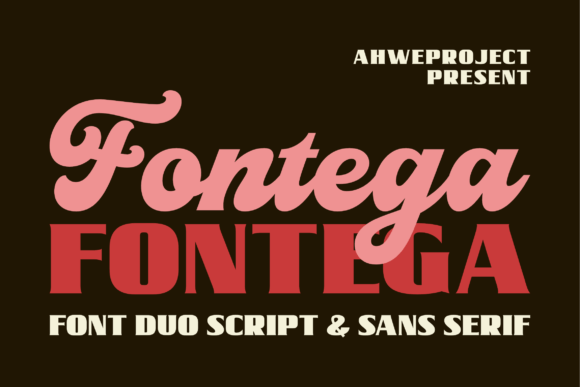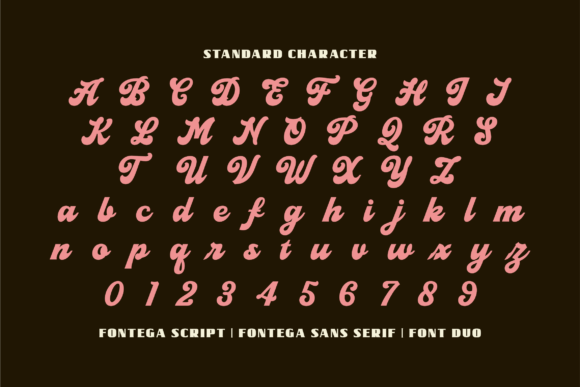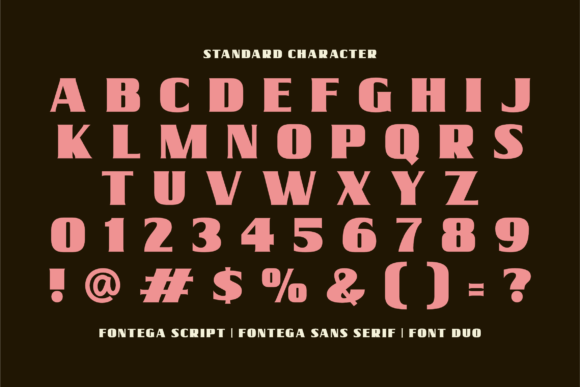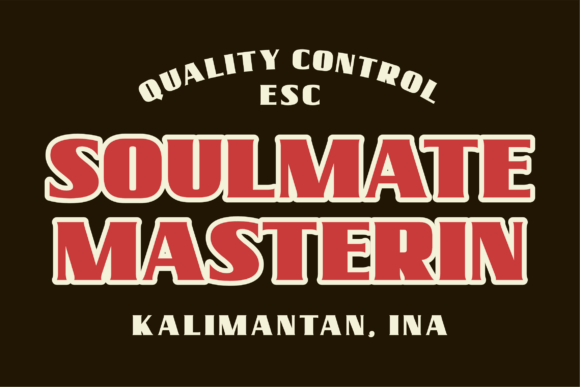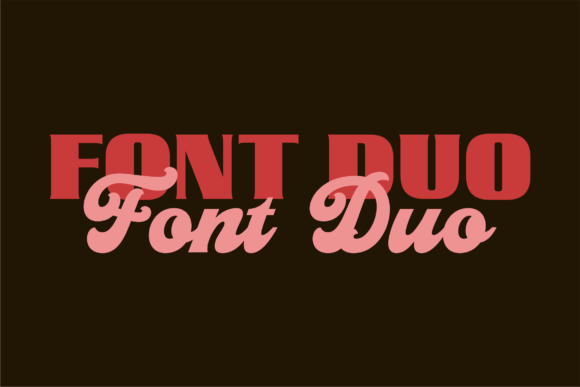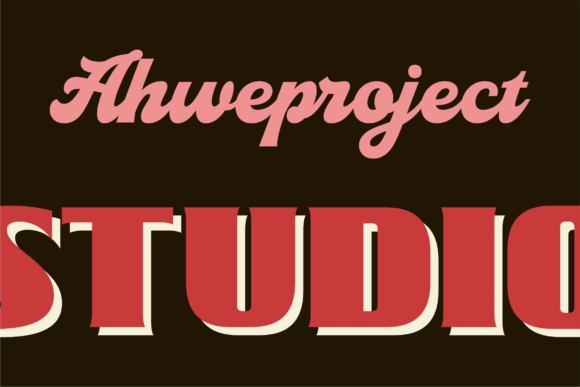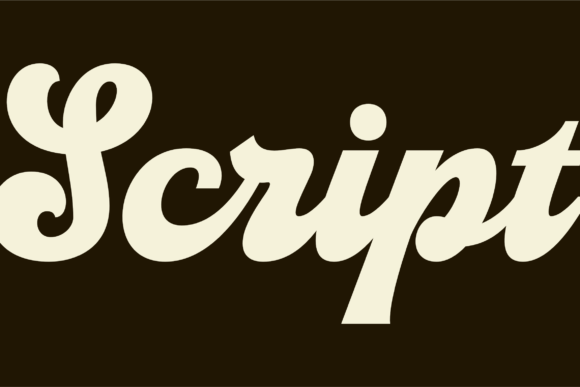
Unleashing Elegance: Introducing Fontega Duo Font
As a designer, you’ve likely experienced that moment of creative bliss when the perfect font comes together, elevating your entire project. It’s a feeling that’s hard to replicate, but with Fontega Duo Font, you might just find yourself there again and again.
Fontega Duo Font is a luxurious font duo consisting of a script and serif font, expertly paired to bring a touch of sophistication to your designs. Whether you’re working on a headline, logotype, apparel, invitation, branding, packaging, or advertising project, this versatile typeface has got you covered. With its support for uppercase, lowercase, punctuation, symbols, numerals, and multiple languages, Fontega Duo Font is an invaluable asset for designers seeking to elevate their work.
Fontega Duo Font Key Features
- Font Family: Fontega Duo is a modern sans-serif font family designed for digital use. It comes in two weights: Regular and Bold.
- Character Set: The font includes a wide range of characters, including Latin, Cyrillic, and Greek scripts, making it suitable for global applications.
- Resolution: Fontega Duo is designed to be highly legible at various resolutions, including screen resolutions (72-144 dpi) and print resolutions (300-600 dpi).
- Font Size: The font family supports font sizes ranging from 8 to 72 points, making it suitable for a wide range of applications, from body text to display headings.
- Unique Characteristics: Fontega Duo features a unique blend of modern and classic design elements, with a focus on readability, making it an ideal choice for digital applications where clear communication is essential.
Fontega Duo Font Review
I recently had the chance to work with the Fontega Duo Font, and here’s my honest take.
- The unique blend of script and sans-serif elements creates a visually appealing and modern look.
- The font is highly legible, even at smaller font sizes.
- The bold and light versions of the font are well-balanced and versatile.
- It’s great for use in digital and print materials, including logos, headings, and body text.
- The font may be too bold or overpowering for some designs, particularly those with simple or minimalist aesthetics.
- The script elements can sometimes feel disjointed or inconsistent, especially when used in long blocks of text.
- The font lacks a true italic version, which can make it less suitable for formal or academic writing.
The Fontega Duo Font is a solid choice for designers looking to add a modern, eye-catching touch to their projects. While it has some limitations, its unique style and high legibility make it a great option for a wide range of applications.
Getting the Most Out of Fontega Duo Font
To get the most out of Fontega Duo Font, consider the following tips:
- Experiment with different font styles and sizes to create visually appealing designs.
- Pair Fontega Duo Font with other fonts to create a unique and stylish look.
- Use Fontega Duo Font to create emphasis and draw attention to important text.
Fontega Duo Font is ideal for:
- Designing logos and branding materials.
- Creating eye-catching titles and headings.
- Adding a touch of elegance to digital documents and presentations. Alternatives to Fontega Duo Font
- Choose a warm, earthy color palette to complement the whimsical feel of the design.
- Use the Fontega Duo Font as the main title font, pairing it with a contrasting color to create visual interest.
- Add decorative elements, such as hand-drawn illustrations or watercolor textures, to enhance the whimsical feel.
- Pair the Fontega Duo Font with a serif font, such as Garamond, for a classic and elegant look.
- Use Fontega Duo Font in conjunction with bold, geometric shapes to create a striking contrast.
Project 1: Whimsical Woodland Book Cover
This project features a charming book cover design that incorporates the Fontega Duo Font in a unique and creative way.
To use Fontega Duo Font in this project:
Combining Fontega Duo Font with other design elements:
Project 2: Minimalist Menu Board
This project showcases a clean and modern menu board design that effectively utilizes the Fontega Duo Font in a straightforward and easy-to-read format.
To use Fontega Duo Font in this project:
Combining Fontega Duo Font with other design elements: